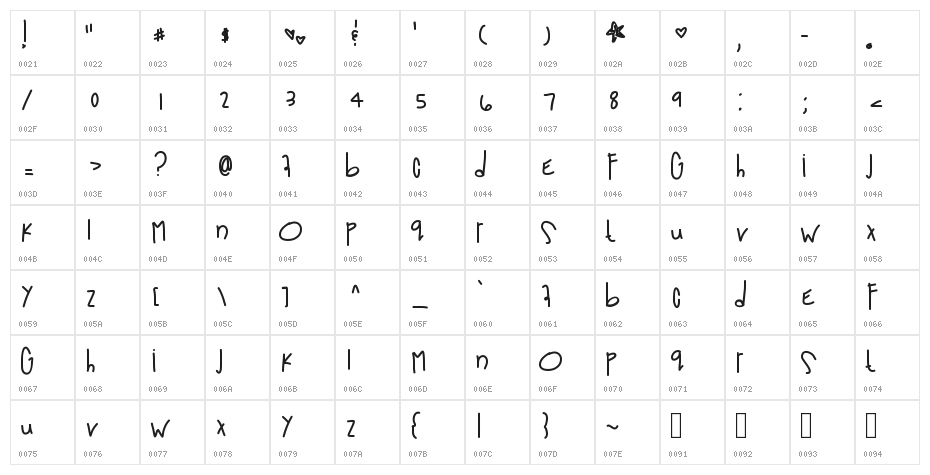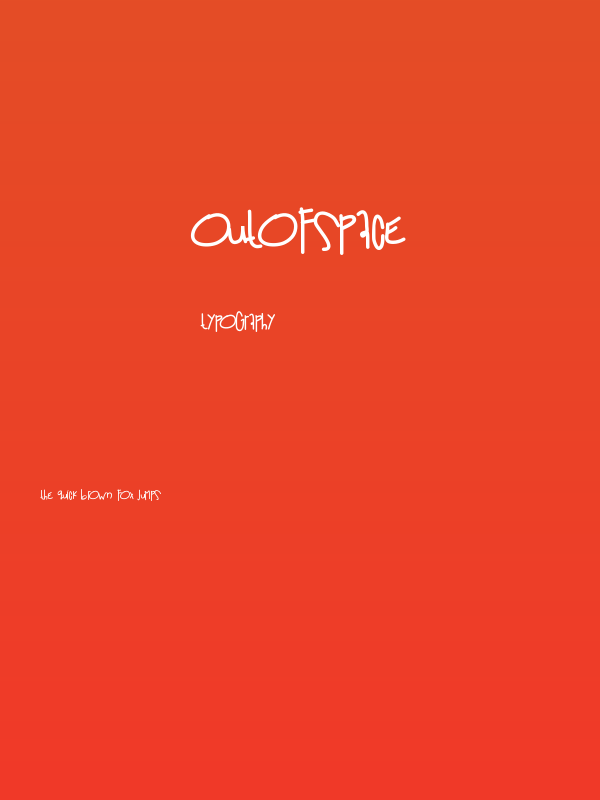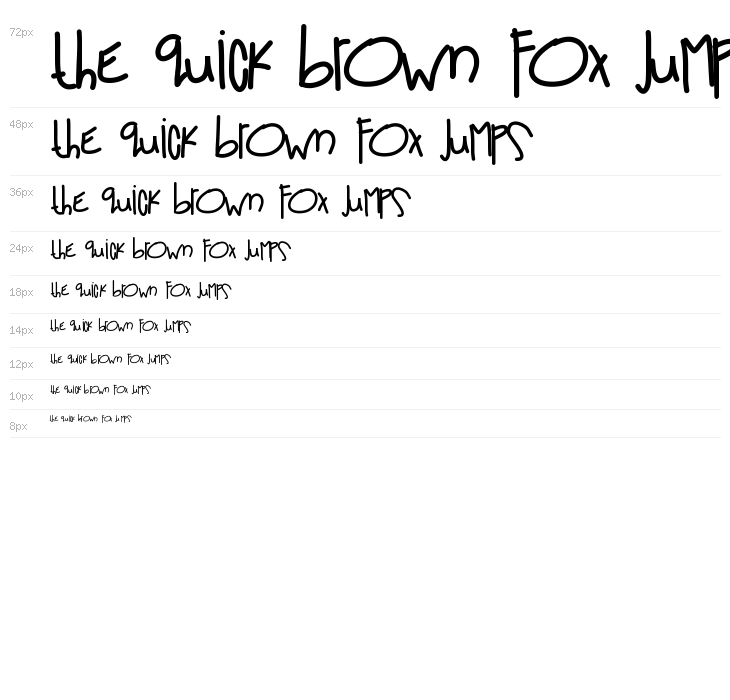
OutOfSpace Font
OutOfSpace Description
This font features a playful and casual handwritten style, characterized by its loose and flowing letterforms. The strokes are uneven, giving it a dynamic and energetic appearance. The uppercase letters are tall and narrow, while the lowercase letters are more rounded and compact, creating a nice contrast. The numbers and special characters maintain the same whimsical style, making the font versatile for various creative projects. Its informal nature makes it suitable for designs that aim to convey a sense of fun and approachability.
| Overall Style | Casual |
| Use Case | Logos, Headlines, Informal Invitations |
| Proposed Projects | Ideal for greeting cards, children's books, playful branding, and social media graphics. |